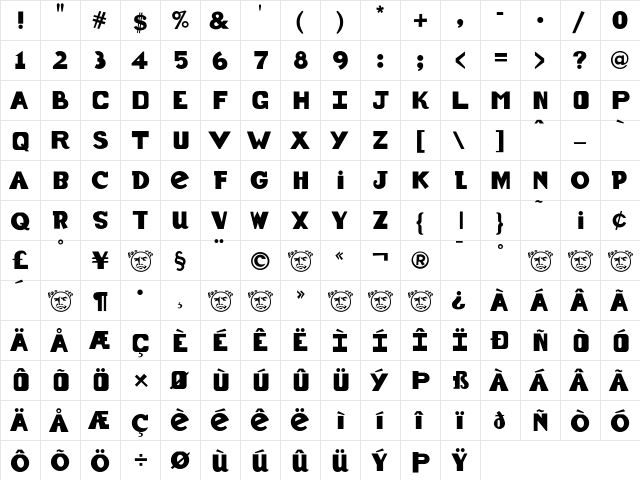
BadTyp Regular
Design Context for BadTyp Typeface
BadTyp is a composed and adaptable typeface that performs quietly and consistently across a wide range of design contexts.